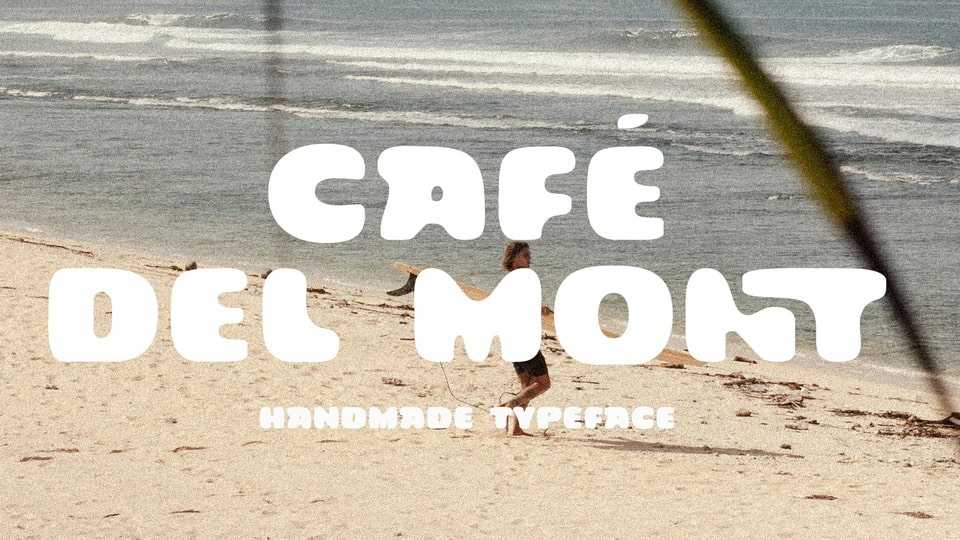
Download Cafe Del Mont font, a bold handwritten sans-serif typeface infused with a warm organic vintage vibe and crafted to look naturally handwritten with confident strokes.